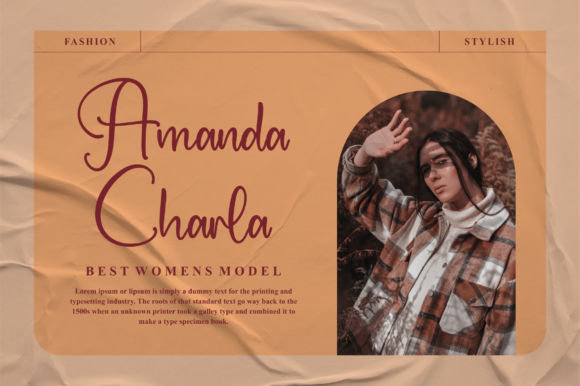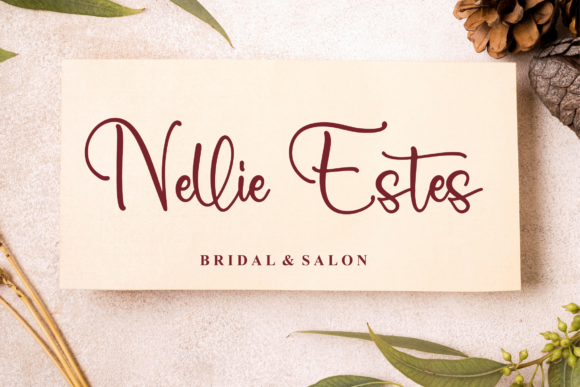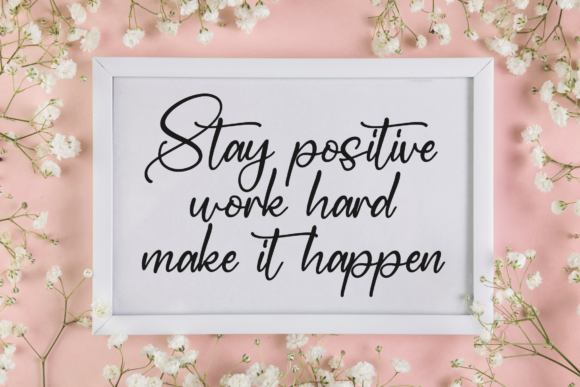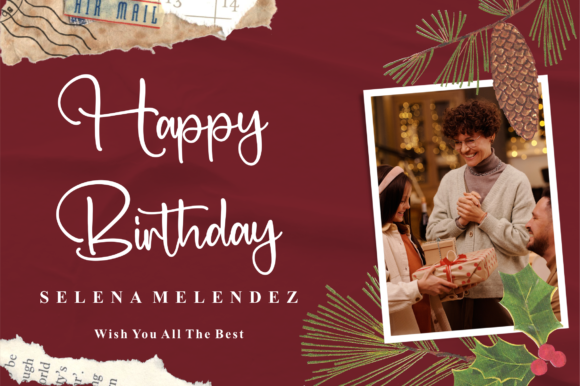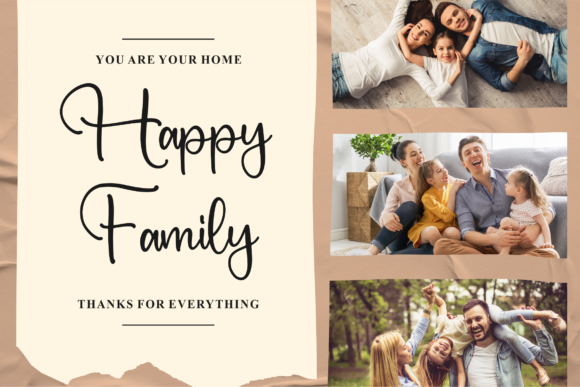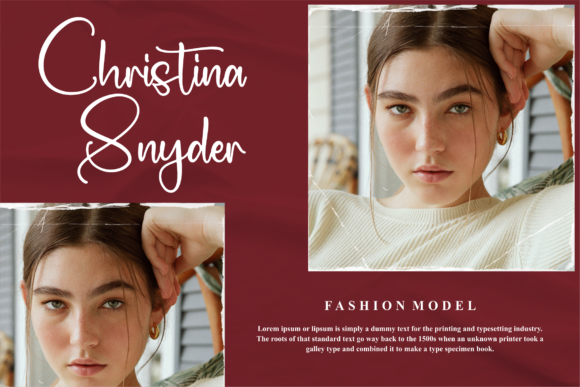
Introduction to Hower Beauty Font
Hower Beauty is a delicate script font.
It is suitable for any projects such as: logos, branding projects, homeware designs, product packaging, mugs, quotes, posters, shopping bags, t-shirts, book covers, name card, invitation cards, greeting cards, label, photography, watermark, special events, and all your other lovely projects that need a beautiful script taste .